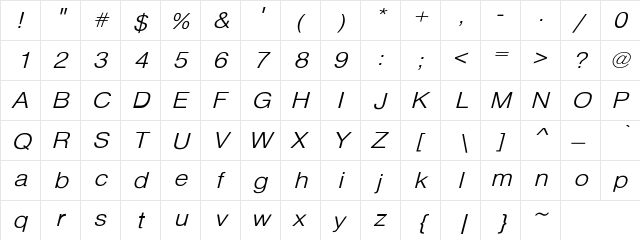
Bern Expanded Oblique 2 Regular
Design Context for Bern Expanded Oblique 2 Typeface
Bern Expanded Oblique 2 takes a measured approach to typography — its balanced proportions and neutral character make it a reliable workhorse for both digital and print work. The dynamic lean of this cut emphasises speed and emphasis in any layout.
Pro Tip: Try Bern Expanded Oblique 2 for annotation and caption copy alongside an upright companion — the contrast in angle creates a dynamic but ordered typographic system.